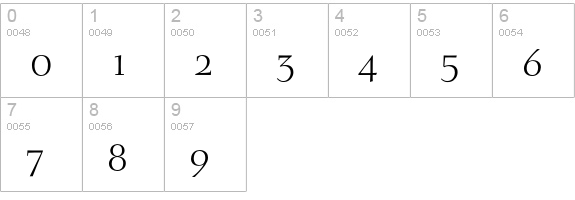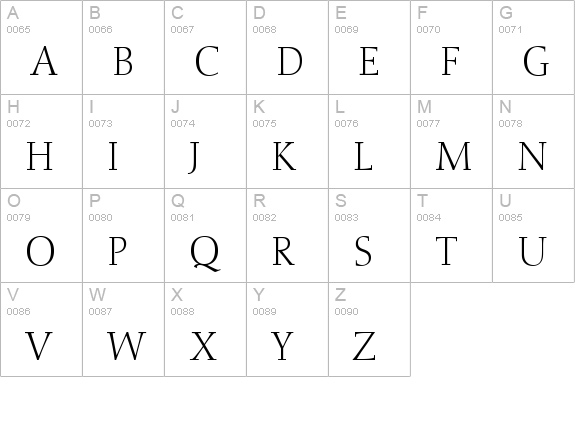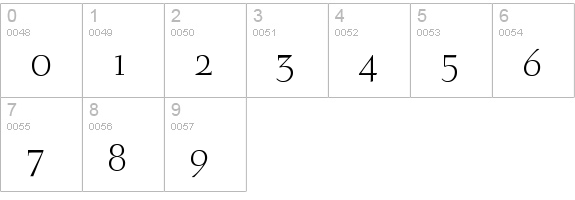
Nofret Expert BQ Light Font Details
Nofret Expert BQ Light is a refined, elegant variant in the Nofret typeface family \xE2\x80\x94 well suited to elegant body text, refined sub-headings, and luxury branding.
Nofret Expert BQ Light font is a modern and stylish typeface that exudes elegance and sophistication. With its clean lines and sleek design, this font is perfect for adding a touch of class to any project. Whether you're creating a professional presentation or designing a sleek website, Nofret Expert BQ Light font is sure to impress. The light weight of this font adds a subtle and airy feel to your text, making it perfect for headings, titles, and other prominent text elements. Its versatility allows it to be used in a variety of design projects, from branding and advertising to editorial layouts and more. And the best part? Nofret Expert BQ Light font is completely free to download at FontsMarket.com. So you can easily add this stylish and sophisticated font to your collection without breaking the bank. Don't miss out on the opportunity to elevate your designs with the timeless beauty of Nofret Expert BQ Light font.